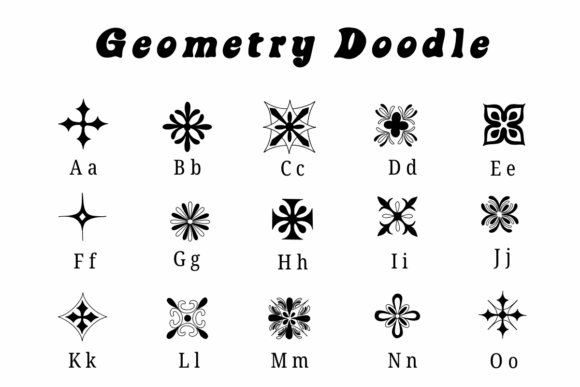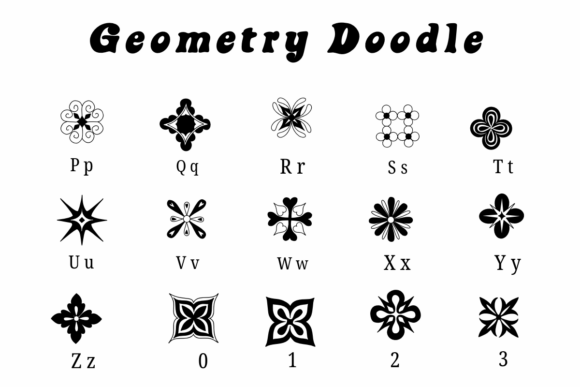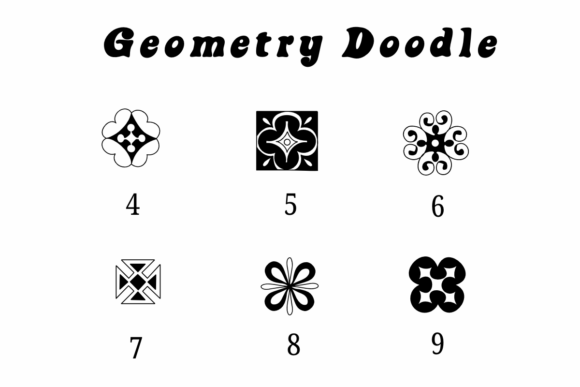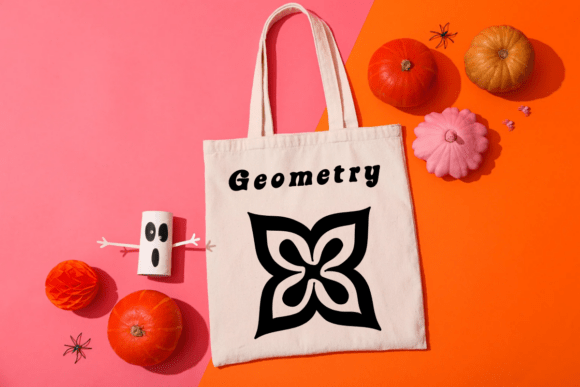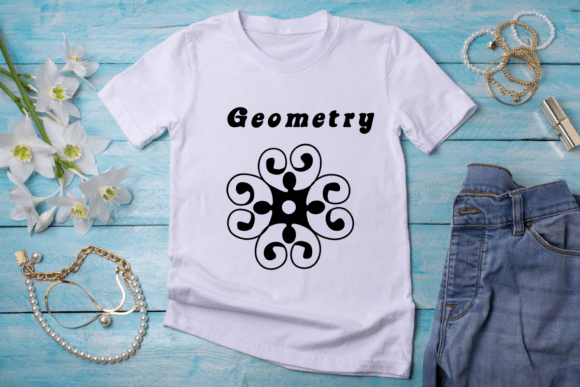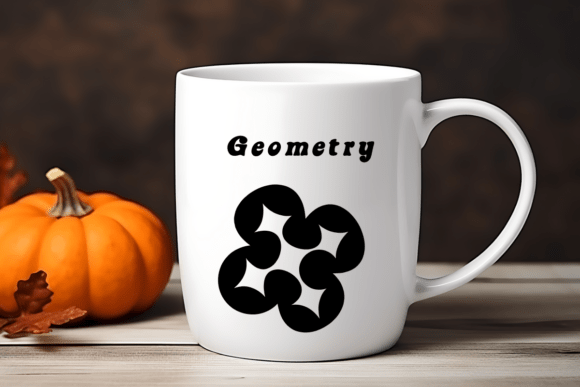
Introduction to Geometry Doodle Font
Geometry Doodle is a fun dingbats font.
Extremely versatile, it’s suitable for a wide range of creative and educational projects .
Key Features of Geometry Doodle Font